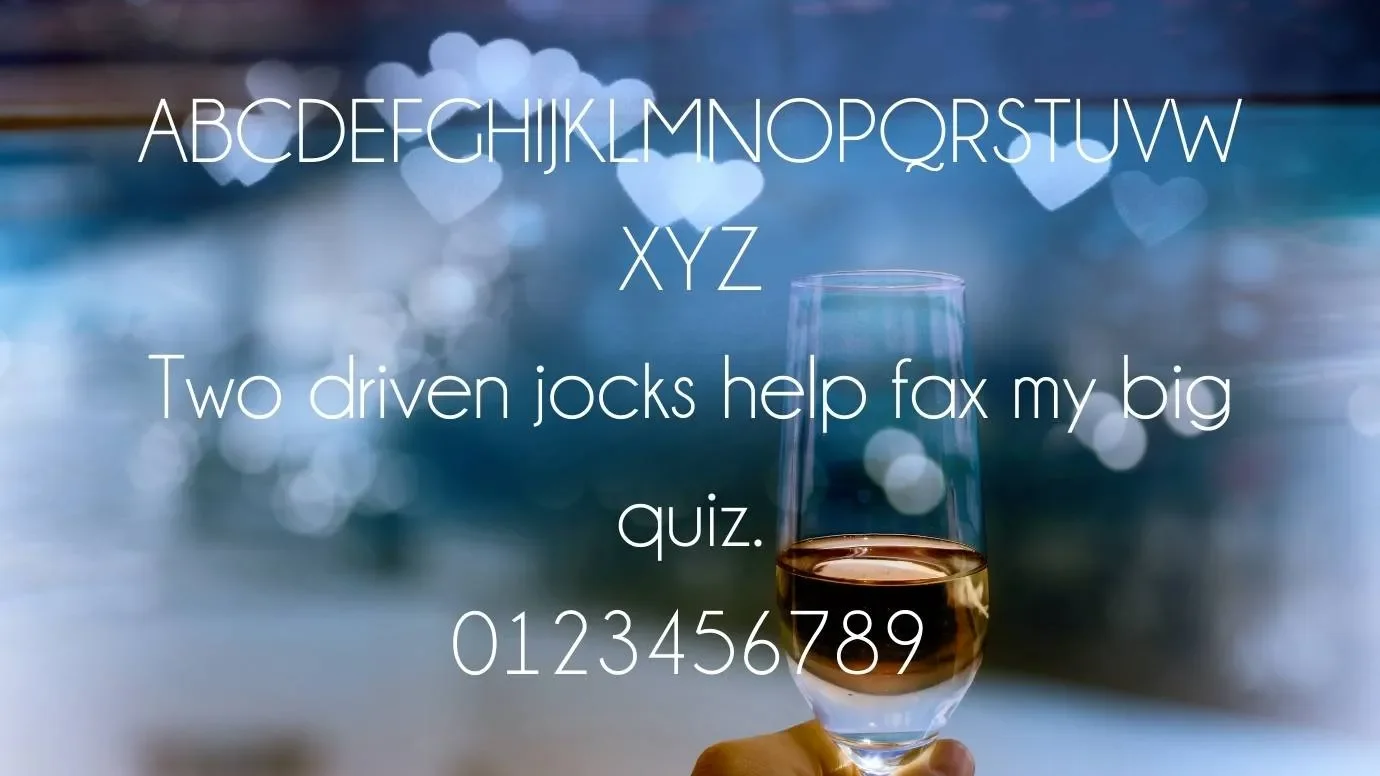
Champagne & Limousines Font is a modern Sans-serif typeface that was established by a well-known designer Lauren Thompson. This elegant typeface comes in four elegant styles that are regular, Bold, Italic, and Bold Italic. It has stylistic and beautiful characters and glyphs.
Due to its fantastic charters, this typeface is good for great engaging and eye-catching designs. Many languages support this modern font family that’s why this typeface is useful all over the world.
It creates huge varieties of styles without any problem. This typeface is good for your project’s unique appearance. You can pair this font with other Sans-serif typefaces for creating similar designs like Helvetica Font. Many web designers and writers love this typeface due to its bold and unique look.
Reason to Use Champagne & Limousines Font
Due to the high flexibility, you can use this typeface for long and short type paragraphs. You can create presentations, reports, articles, invoices, and many other related purposes.
It is also useful for newspapers, magazines, documentation, and offices purposes. You can create other similar designs of this cozy typeface by pairing it with another sans-serif typeface like Arial Font. This is best for creating impressive designs and eye-catching texture designs. Due to its unique look, you can use this typeface for various international purposes like printing projects and logo design.
This modern sans-serif typeface is best for the creating of marvelous articles and the unique look of your projects. You can give a standard look at your project and designs. It is also suitable for many university students and educational institutions.
Many web designers utilize this typeface for creating posters designs, animated logo designs, and their personal purposes. Many bloggers and developers use this typeface for titling and headings and their websites and blogs designs.
Champagne & Limousines Font Family (Includes Total 04 Types)
- Champagne & Limousines Regular
- Champagne & Limousines Bold
- Champagne & Limousines Bold Italic
- Champagne & Limousines Italic
What type of font is Champagne & Limousines Font?
It is a sans-serif typeface that you can use for creating bold and other designs. It is also a google font that was designed by an excellent designer Lauren Thompson.